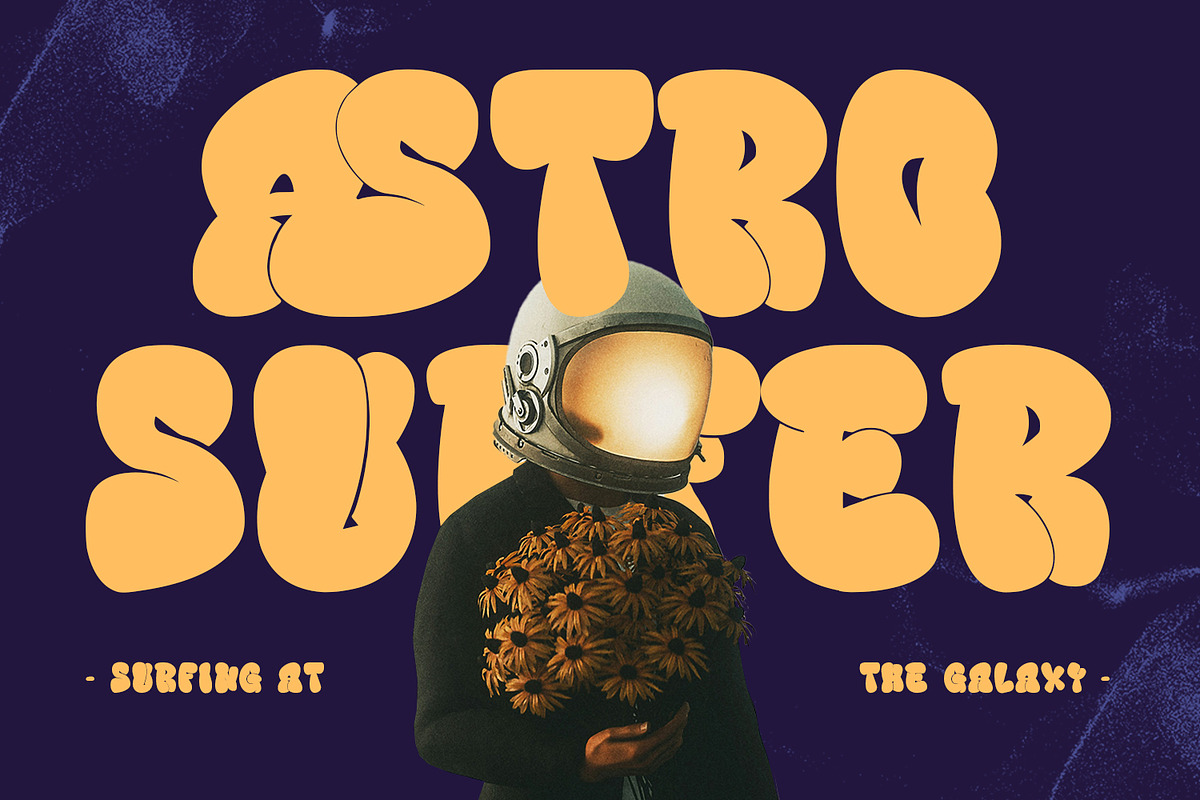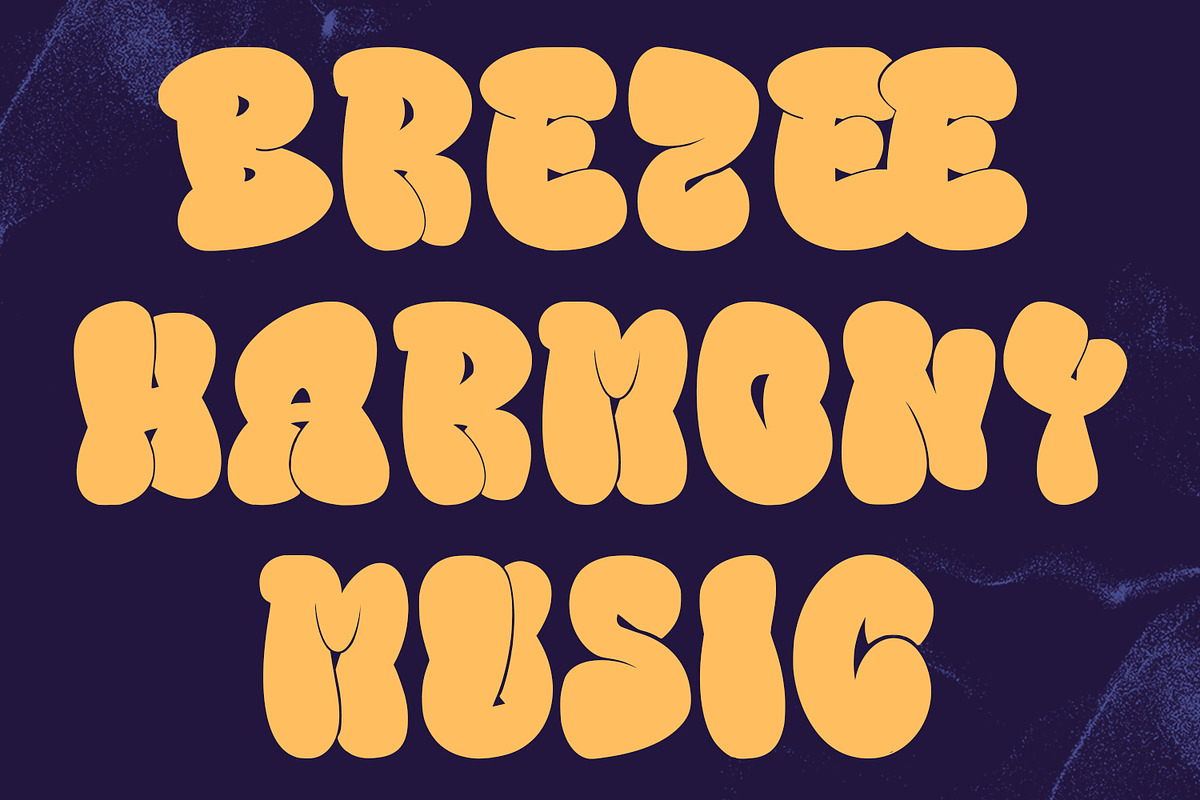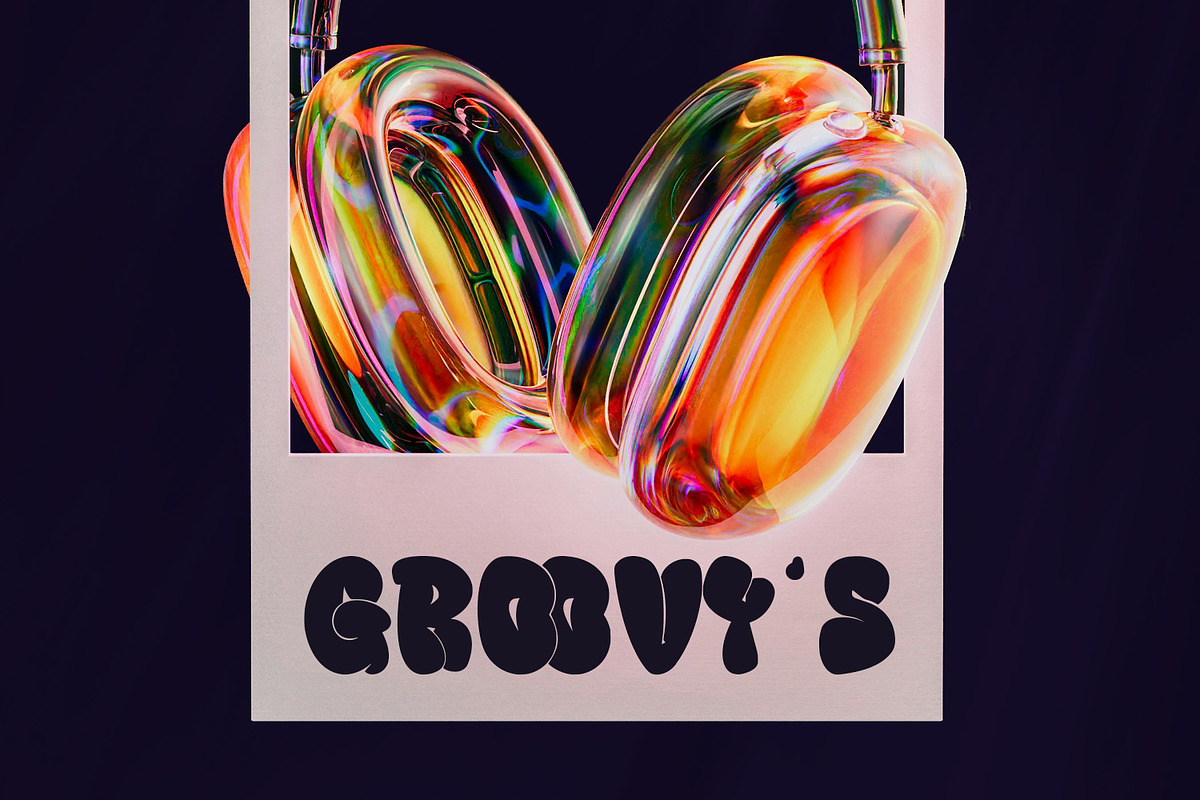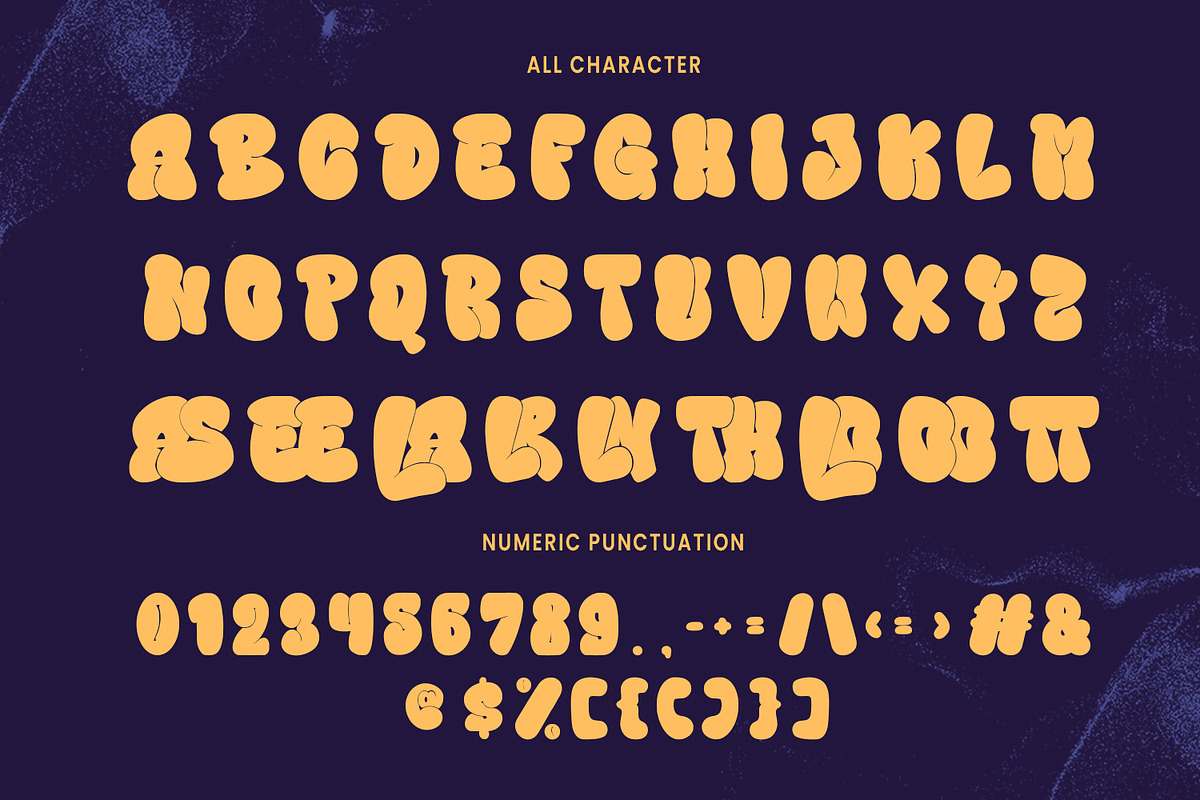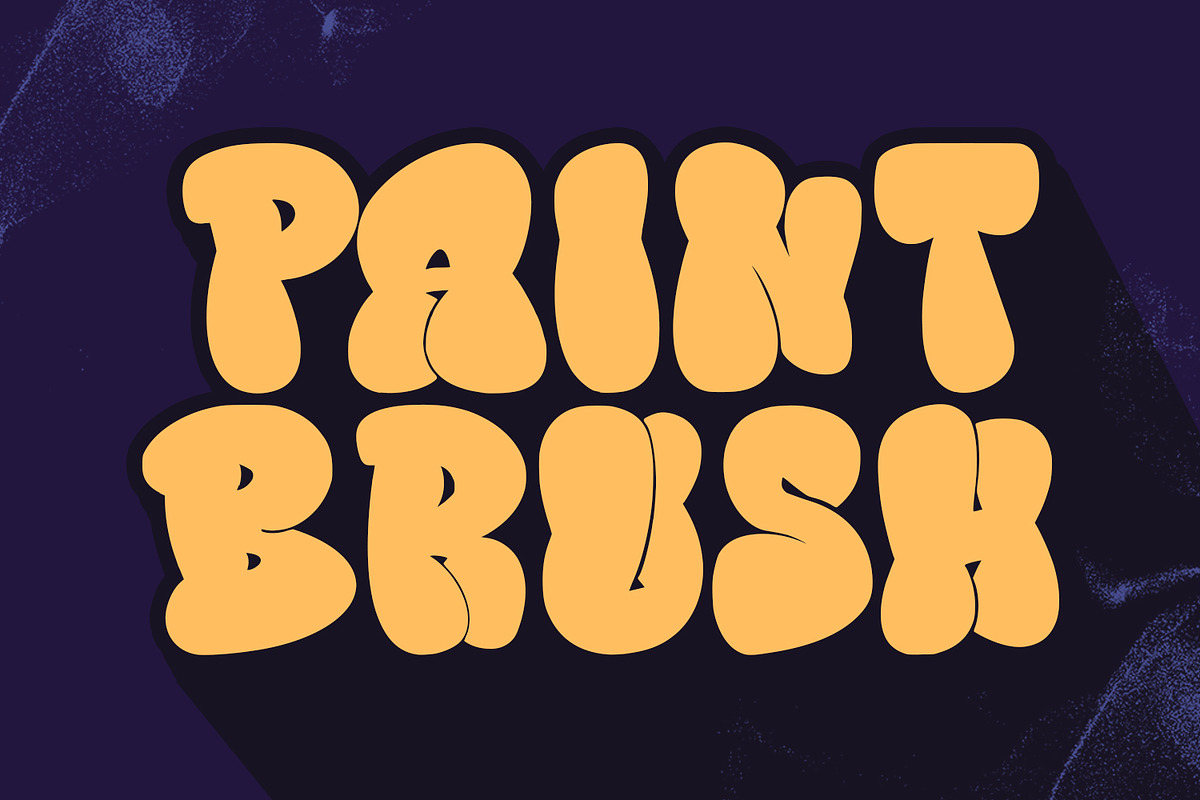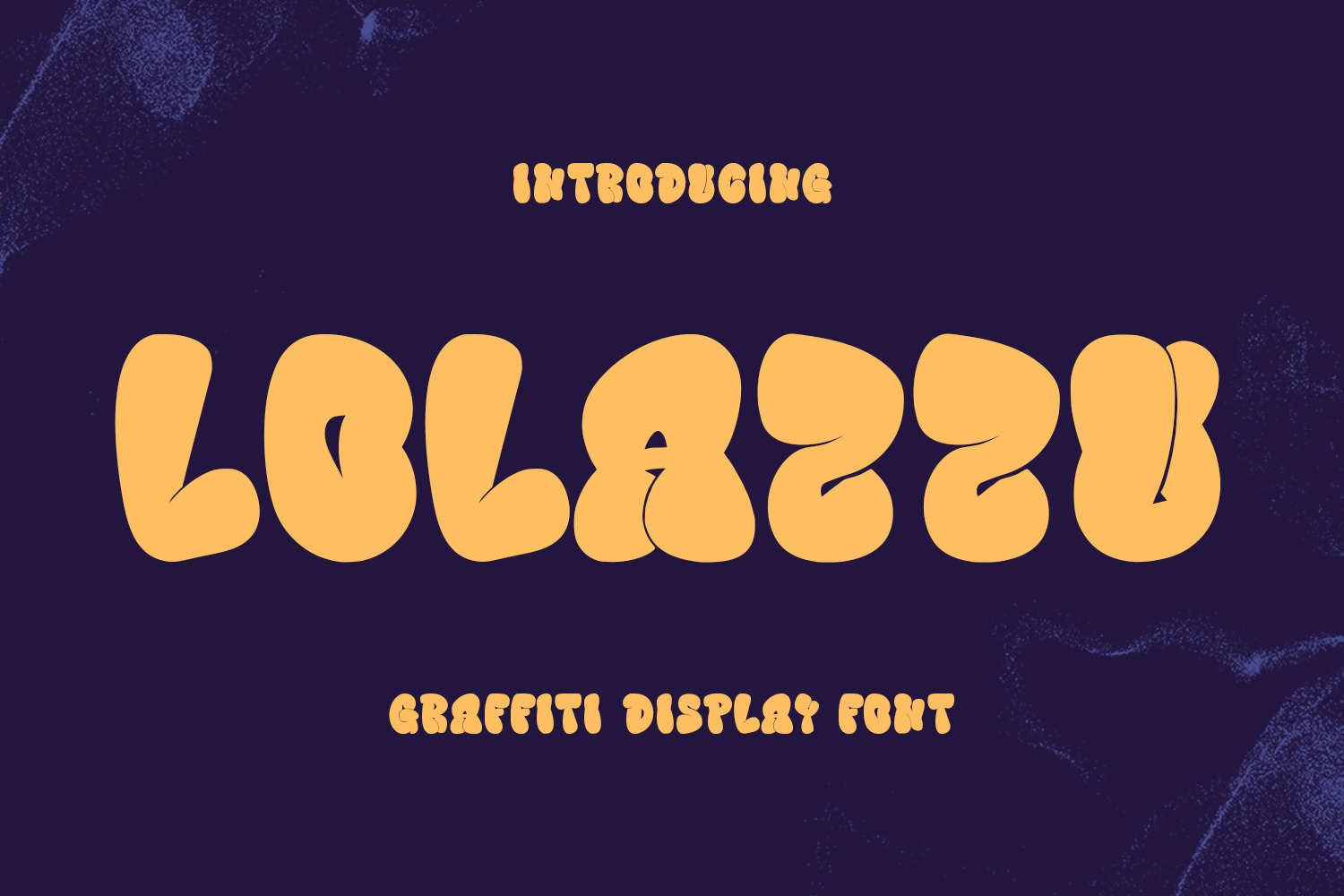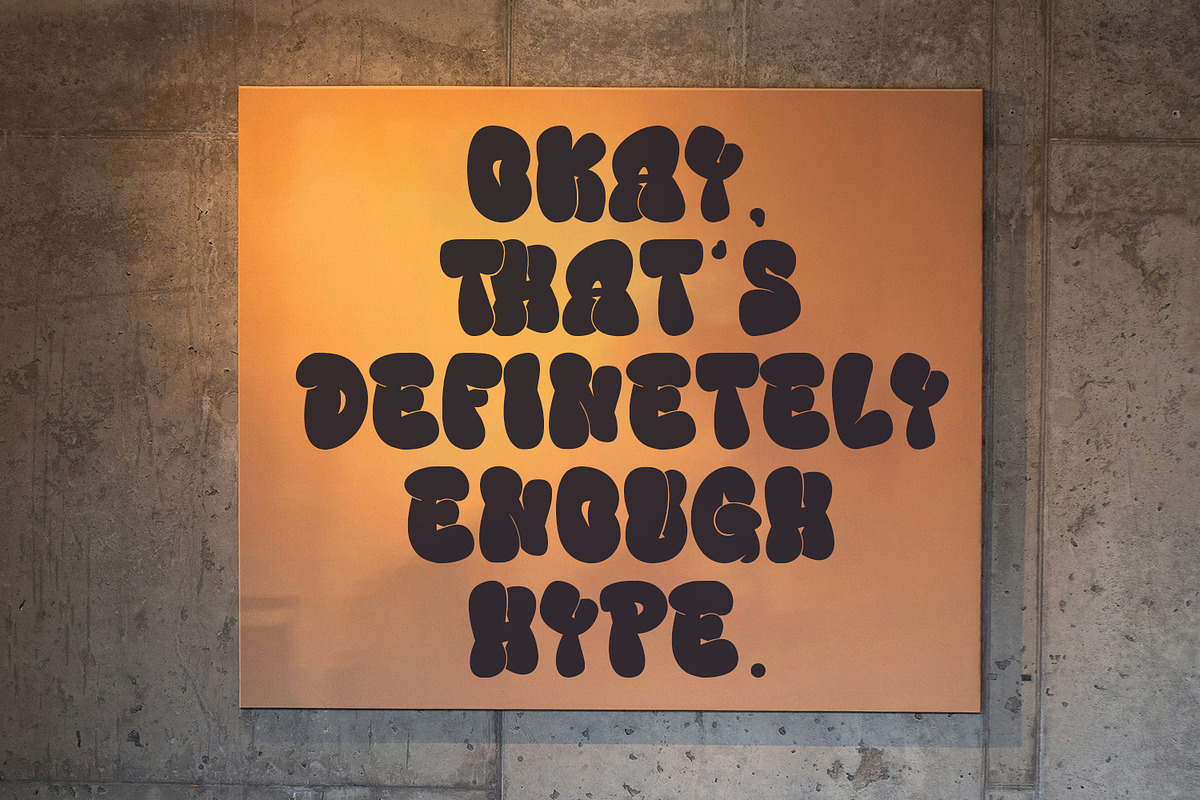
Lolazzu Graffiti Bubble Display Font
Lolazzu graffiti display font. With bold stroke, fun character with ligatures. To give you an extra creative work. Lolazzu graffiti display font support multilingual language. This font is good for logo design, Social media, Movie Titles, Books Titles, a short text even a long text letter and good for your secondary text font with script or serif. Make a stunning work with Lolazzu graffiti display font.